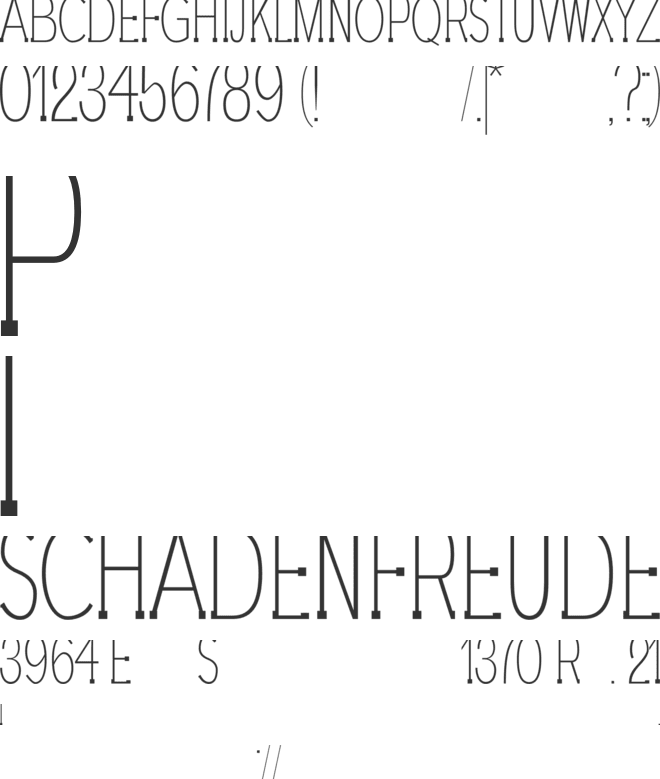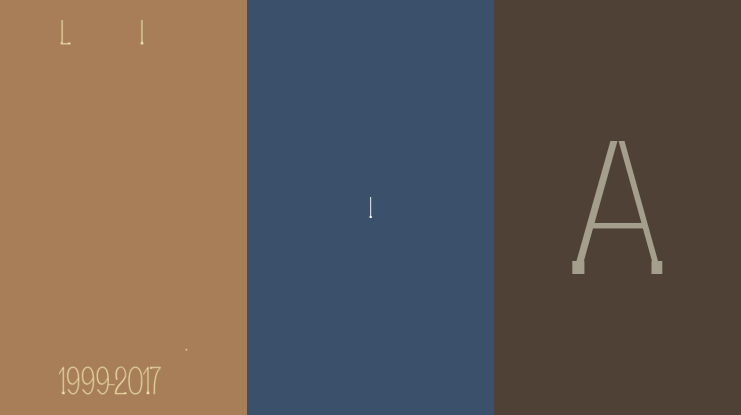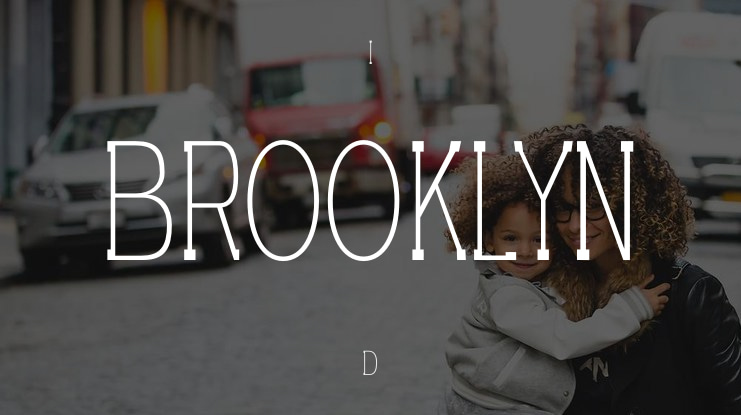
🎨 Font Name: BROOKLYN by Minimalist Art Studio
🎨 Font Description: A clean and confident sans serif with minimalist slab touches—perfect for urban branding and multilingual design.
✔ Complete Latin set + multilingual diacritics
✔ Alternates, stylistic sets & ligatures
✔ Numbers, small caps, and extended punctuation
✔ Bonus italics and family styles